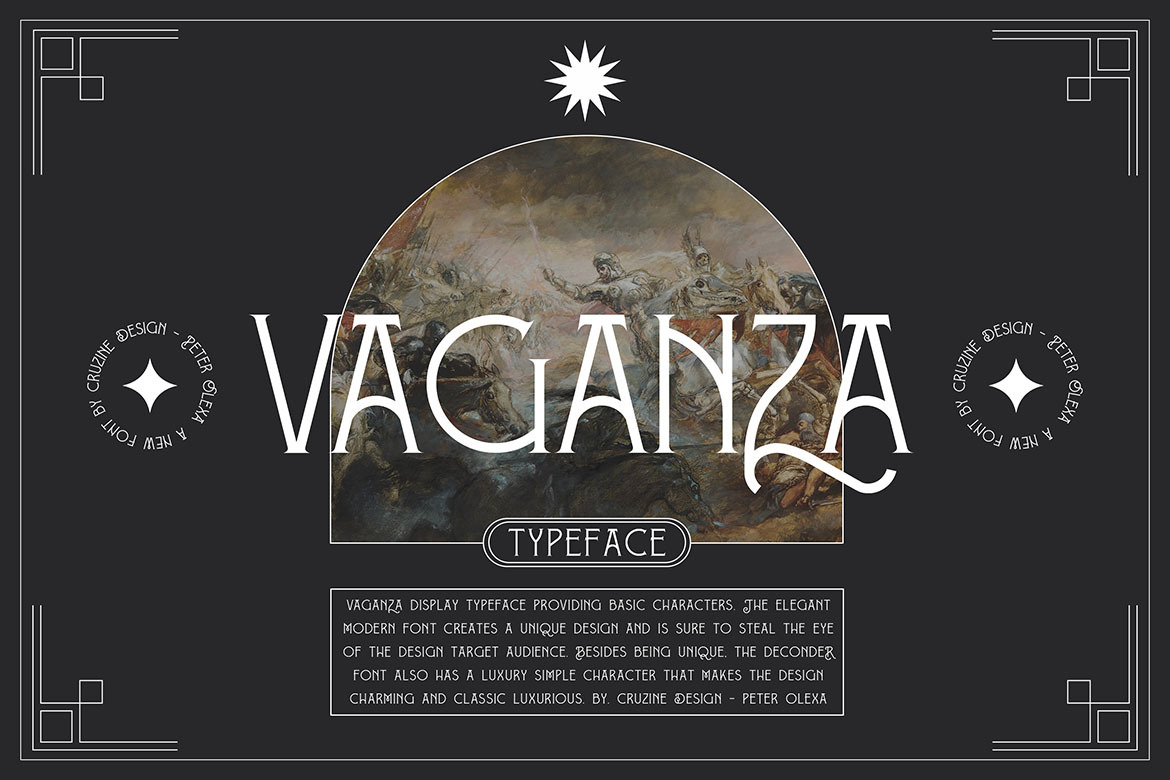
Vaganza - Vintage Serif Font
Unique vintage & ornamental, decorative style custom serif font. Great for your new logo or branding project.
- Great for retro or vintage style branding projects